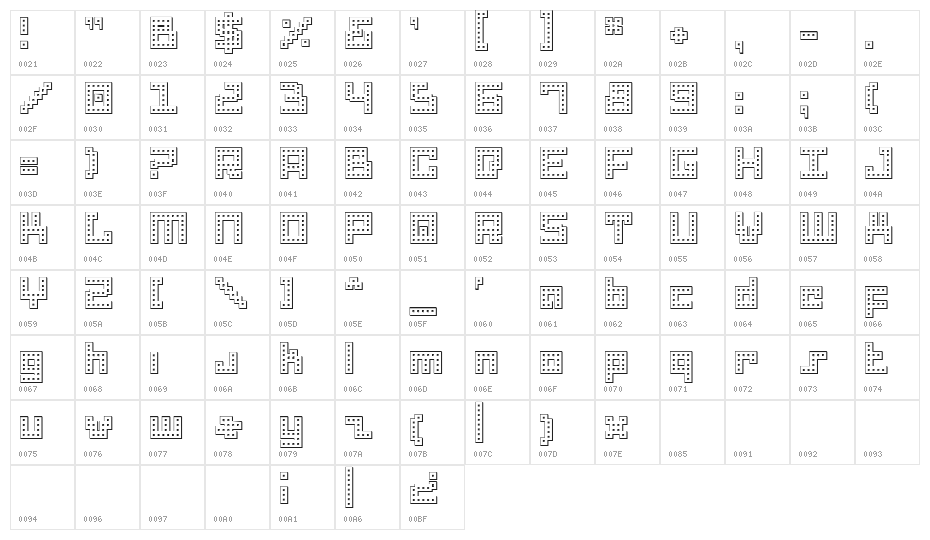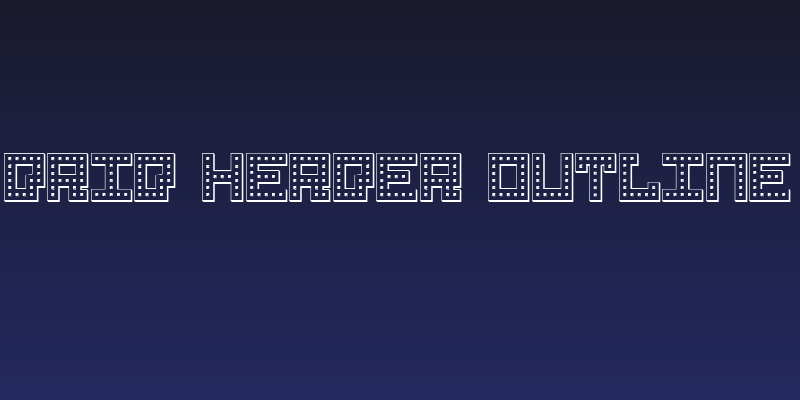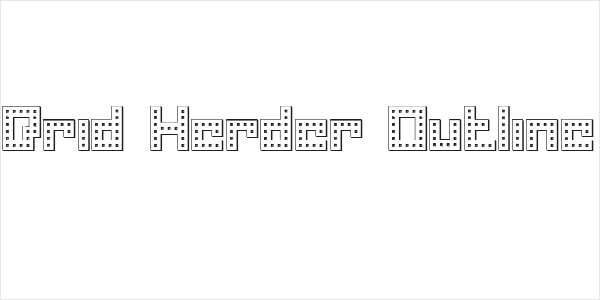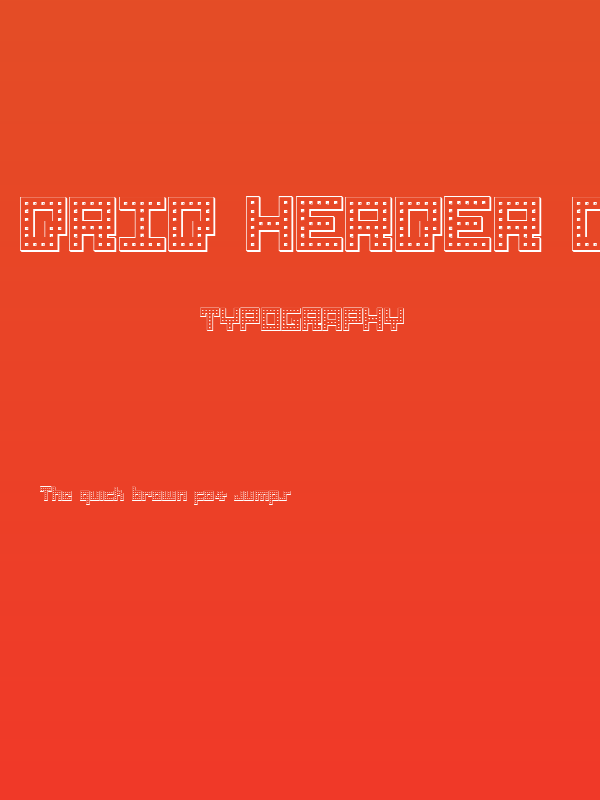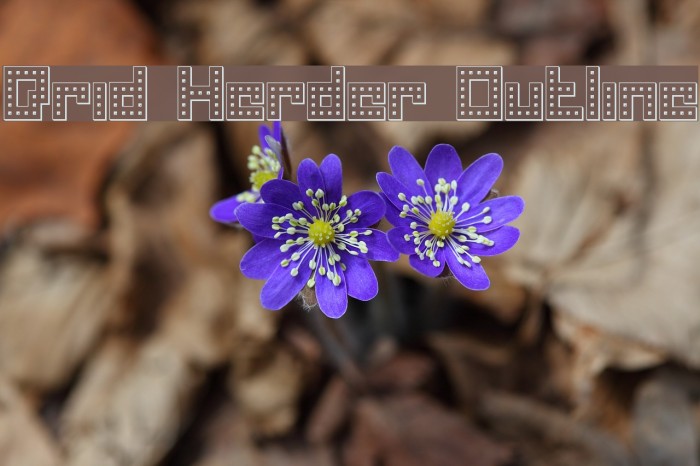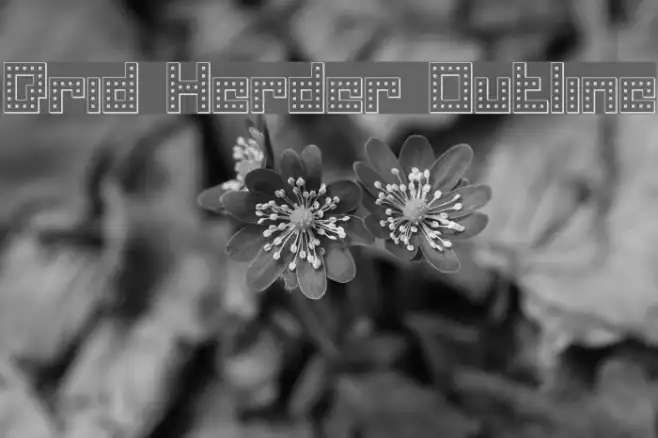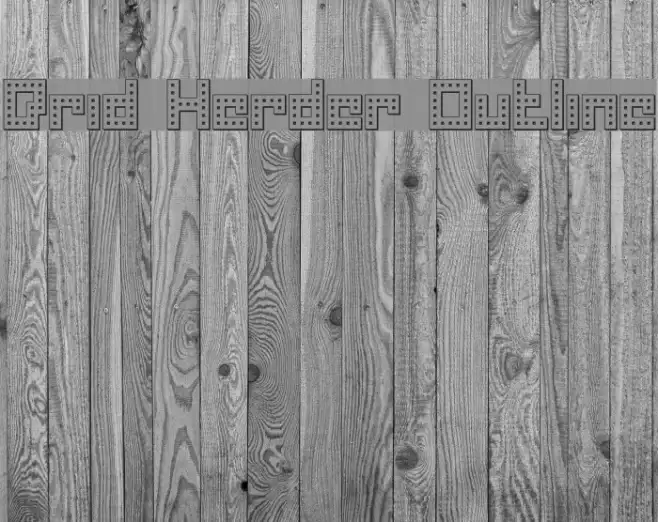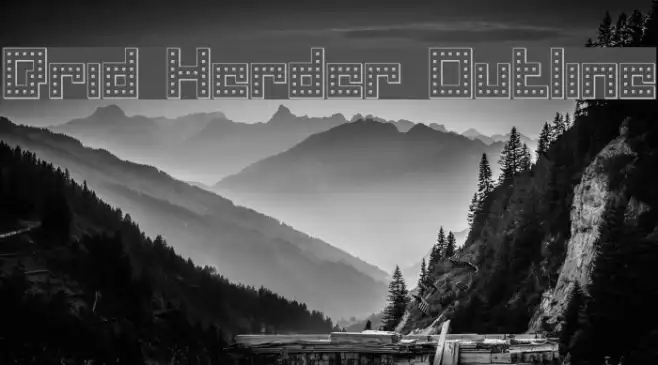
Drid Herder Outline Font
Drid Herder Outline Description
This font features a unique outline design with a dotted pattern filling the interior of each character. The geometric structure is consistent across uppercase, lowercase, numbers, and special characters, creating a cohesive and visually striking appearance. The characters are bold and have a uniform width, making them stand out prominently. The dotted pattern adds a playful and modern touch, while the outlined style ensures readability. This font is ideal for creative projects that require a distinctive and eye-catching typeface.
| Proposed Projects | This font is perfect for digital designs, posters, logos, and any project that requires a bold and unique typeface. |